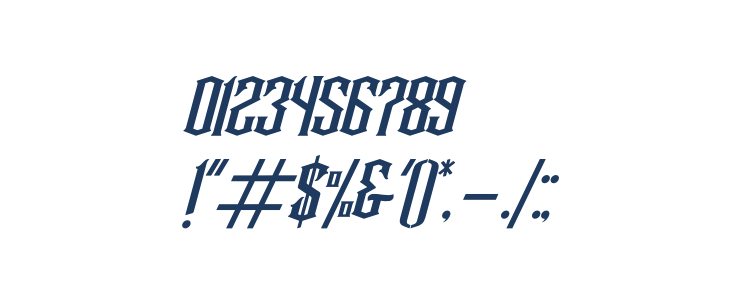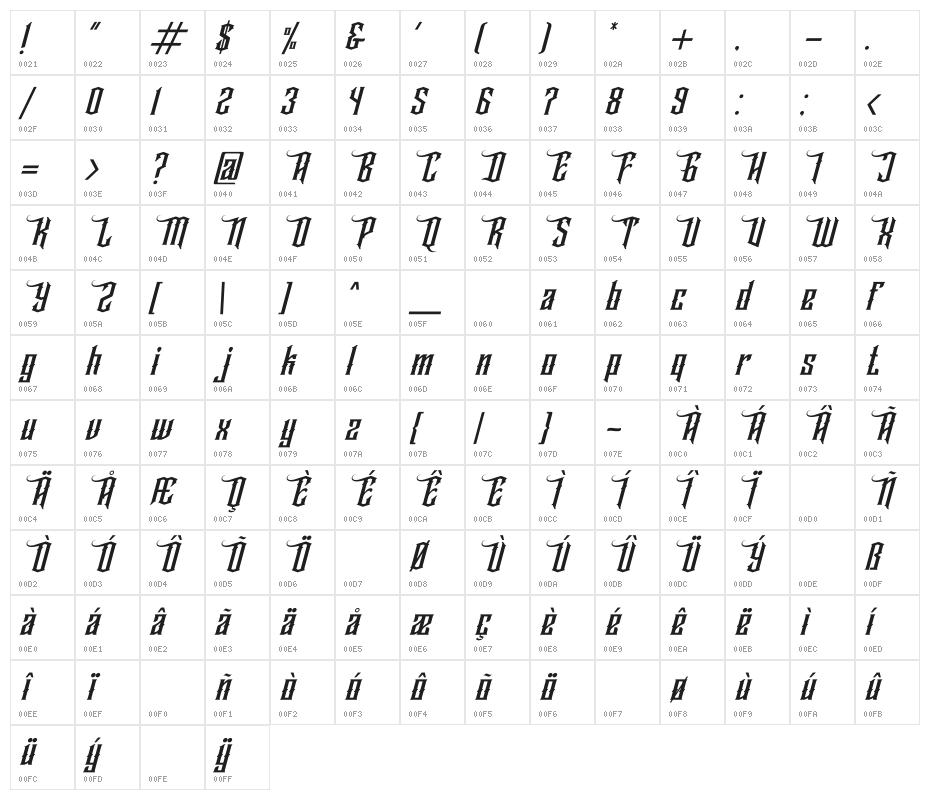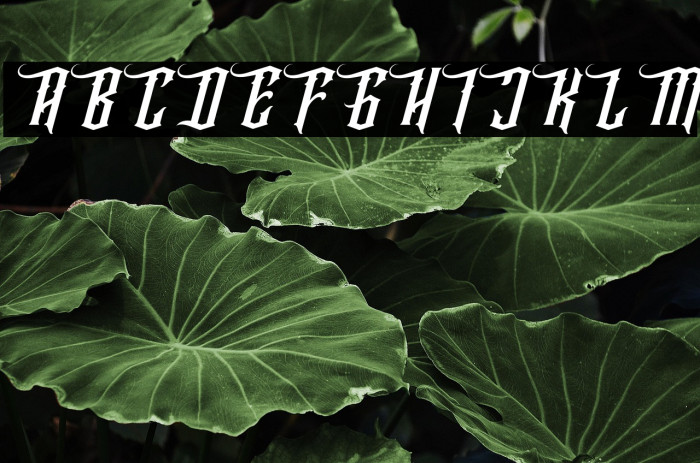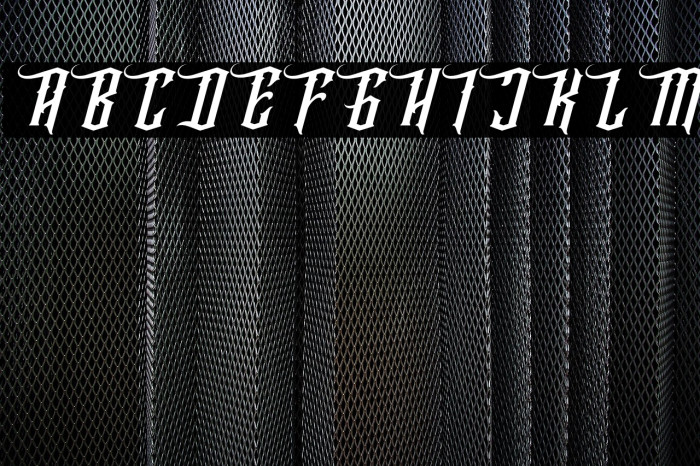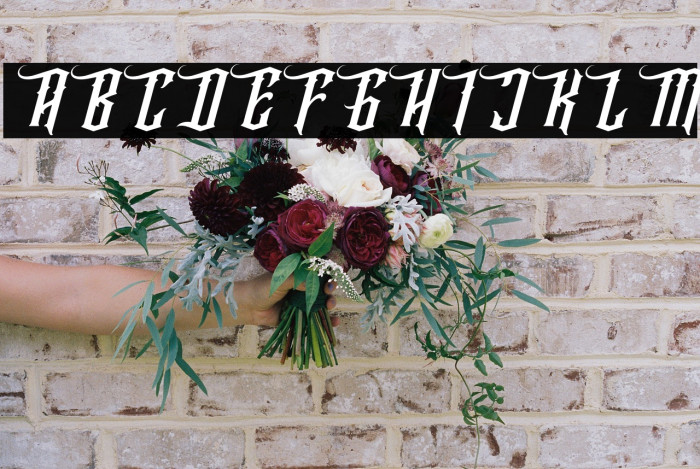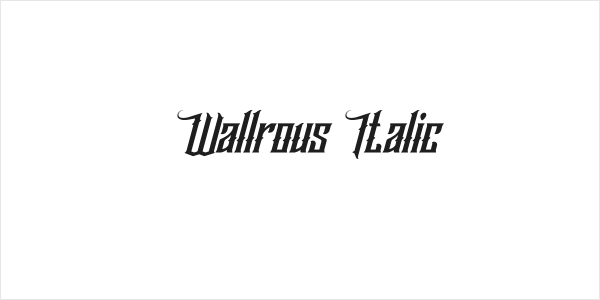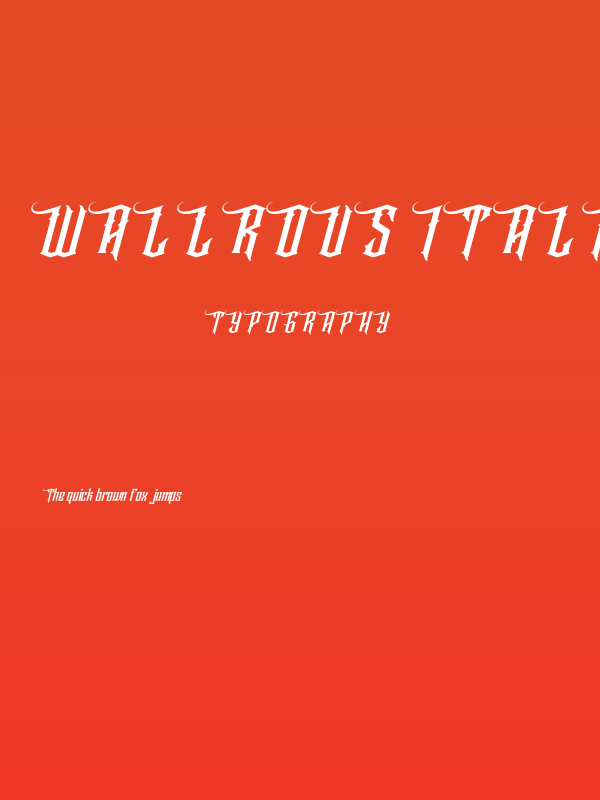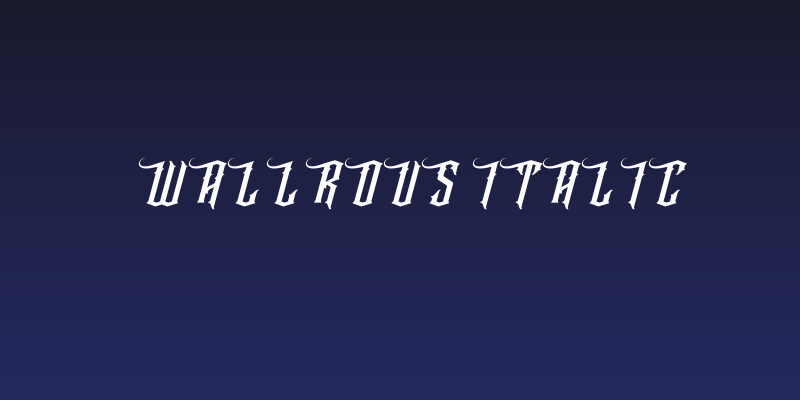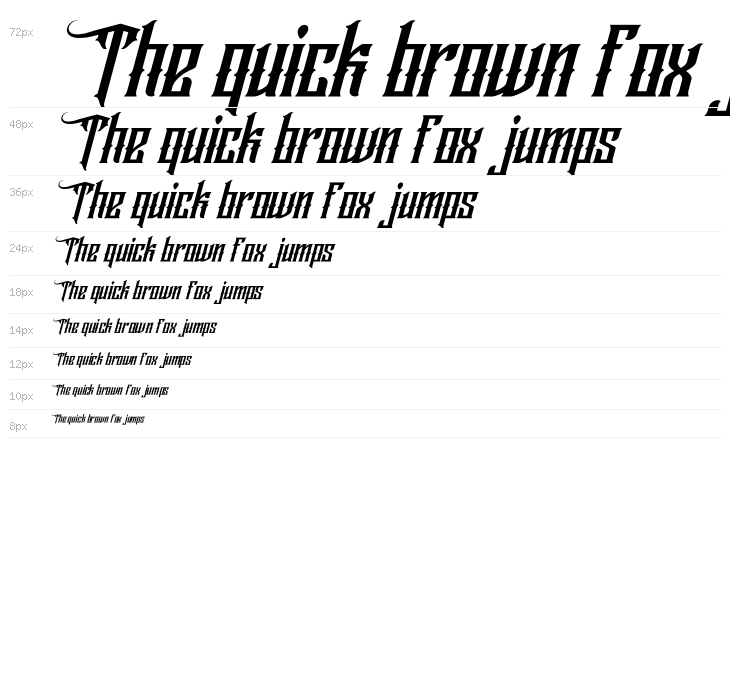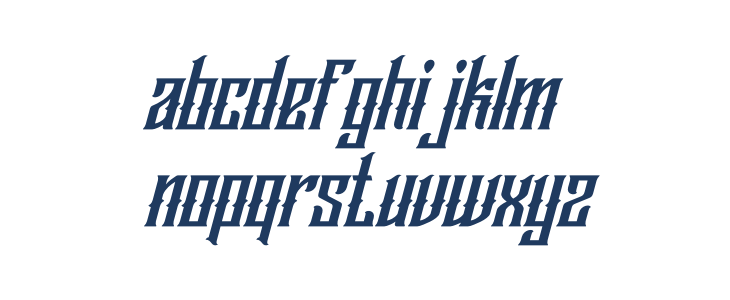
Wallrous Italic Font
Wallrous Italic Description
This font exhibits a bold and dynamic style with a distinct italic slant, giving it a sense of motion and energy. The characters are sharply defined with angular edges and pointed serifs, creating a striking and aggressive appearance. The uppercase letters are particularly elaborate, featuring extended strokes and decorative elements that enhance their visual impact. The lowercase letters maintain the same angular design, ensuring consistency across the typeface. Numerals and special characters are designed to match the overall aesthetic, with similar sharp angles and bold lines. This font is well-suited for projects that require a strong, impactful presence.
Proposed ProjectsIdeal for branding, posters, album covers, and any design requiring a bold, eye-catching typeface.